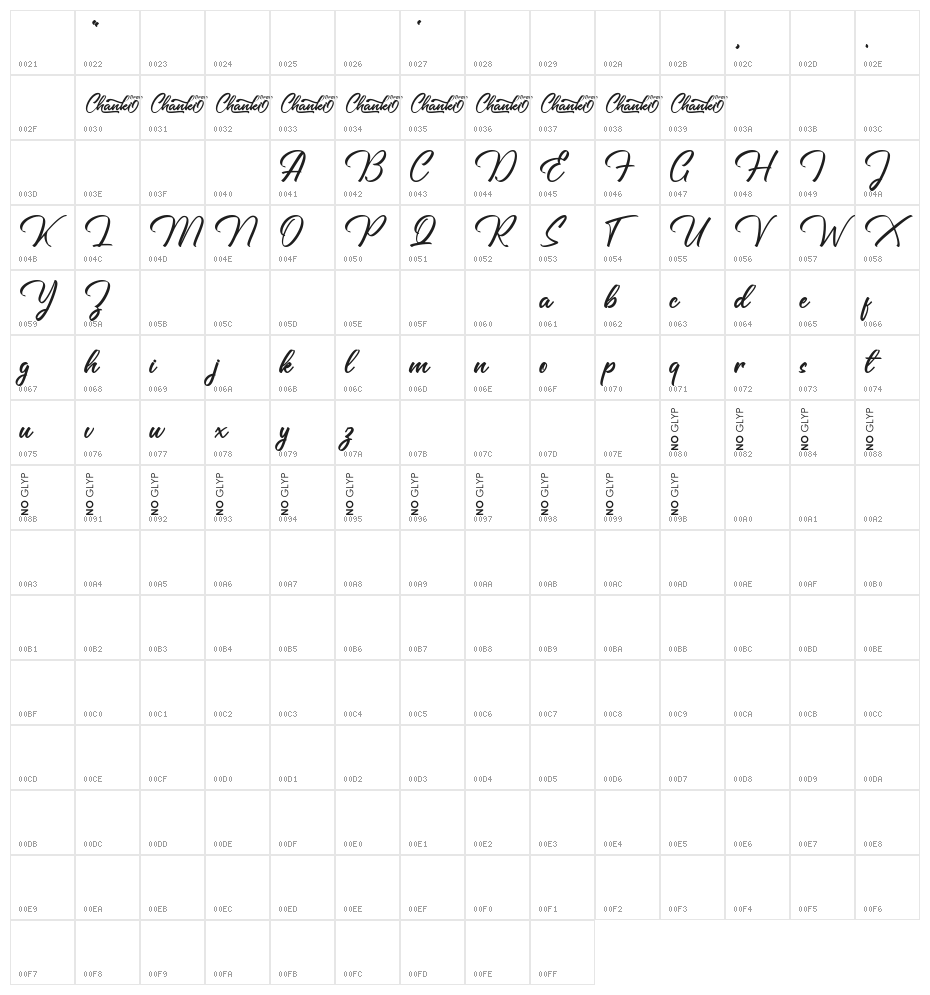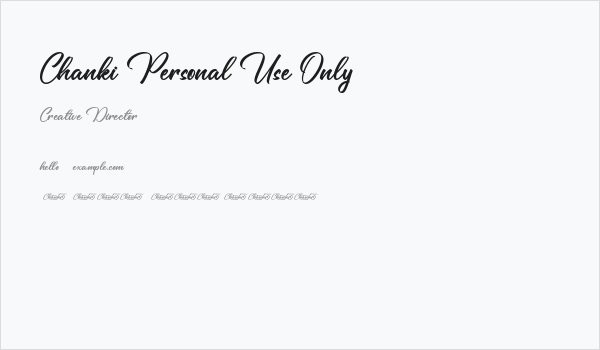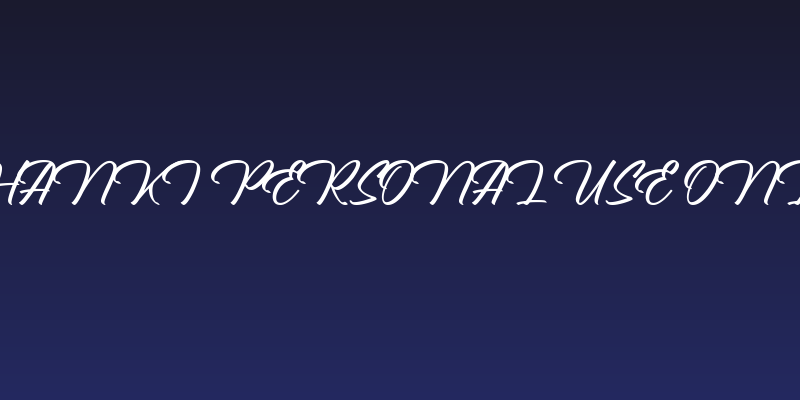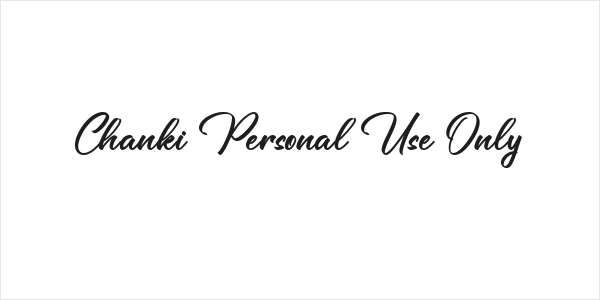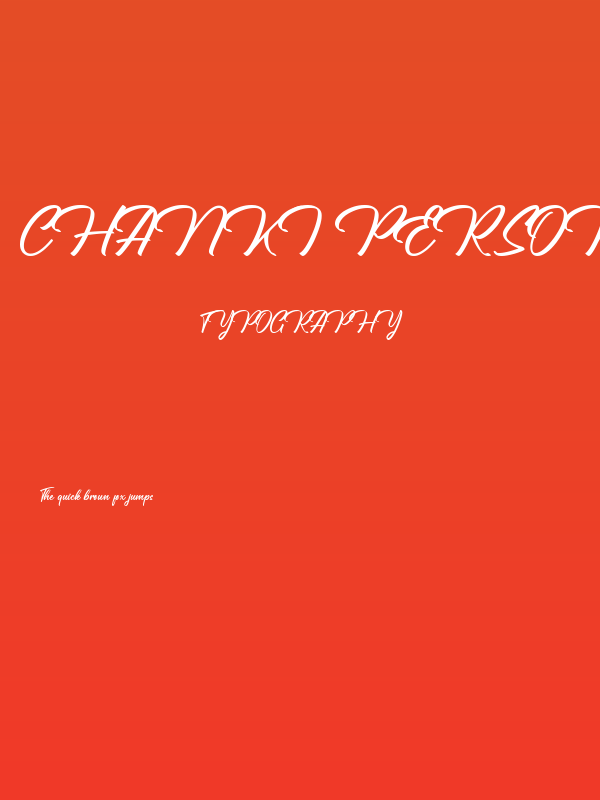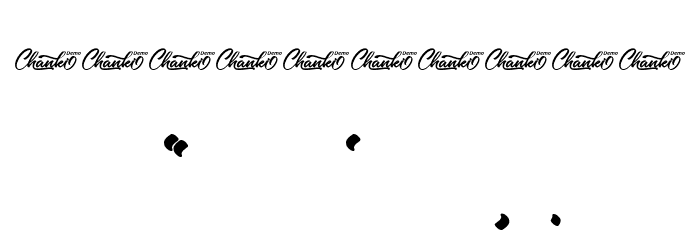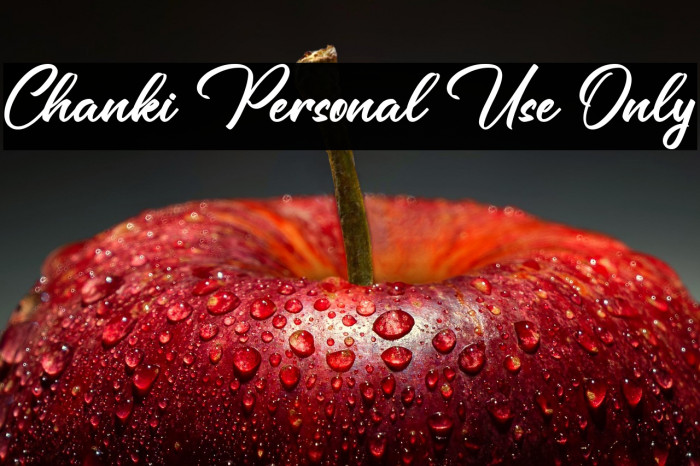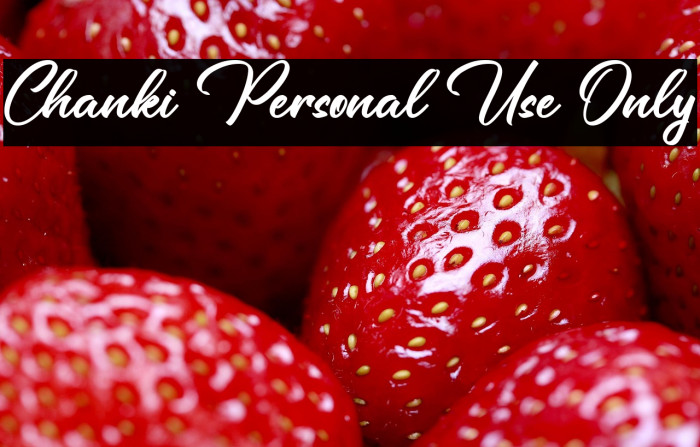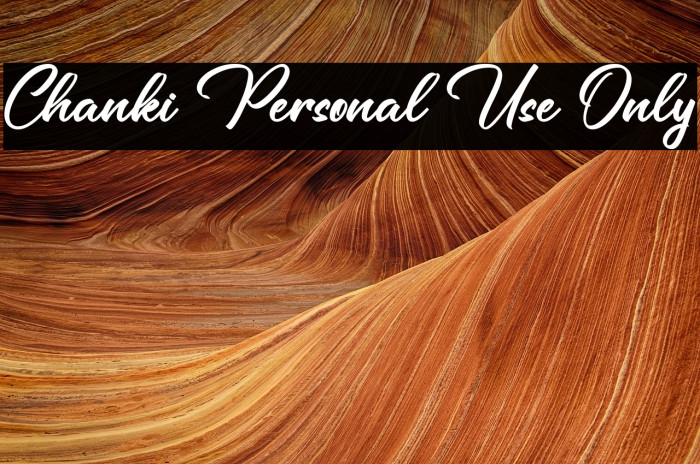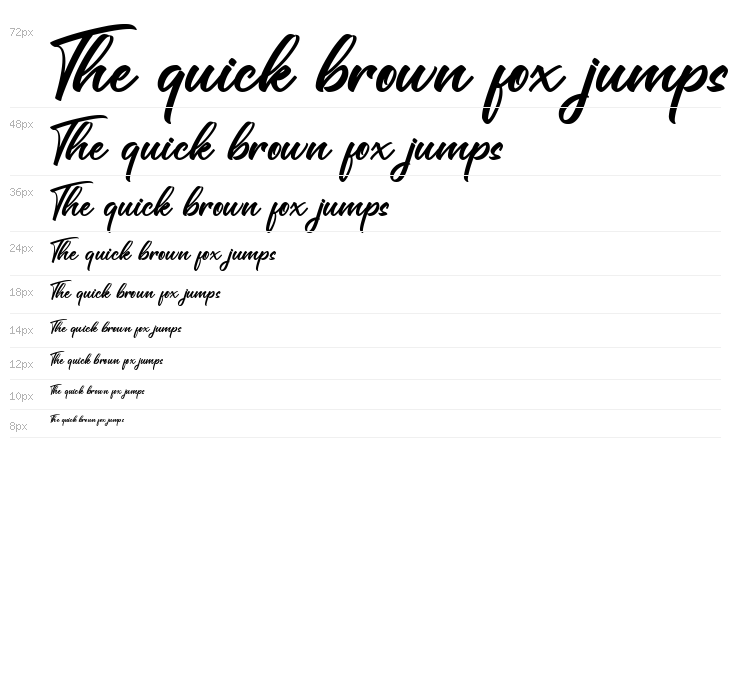
Chanki Personal Use Only Font
Chanki Personal Use Only Description
This font features a dynamic and flowing script style, characterized by its elegant and cursive letterforms. The uppercase letters exhibit a graceful, looping design, while the lowercase letters maintain a consistent, fluid motion. The strokes vary in thickness, adding a sense of movement and sophistication. The font is well-suited for projects that require a personal touch, such as invitations, greeting cards, or branding materials. Its decorative nature makes it ideal for creating eye-catching headlines or logos. The special characters and numbers are designed to complement the overall aesthetic, ensuring a cohesive look across all text elements.
| Proposed Projects | Ideal for invitations, greeting cards, branding materials, headlines, and logos. |